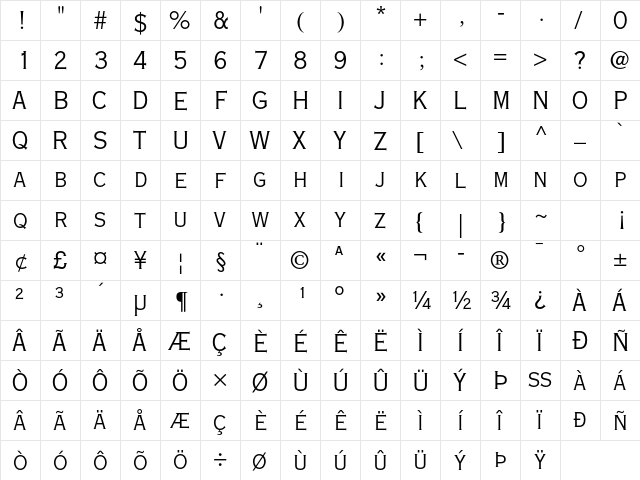
Copperplate Gothic Std 29 AB Font Preview
Copperplate Gothic Std 29 AB
Copperplate Gothic Std 29 AB Font Details
| Style | 29 AB |
| Designer | Frederic W. Goudy |
Design Context for Copperplate Gothic Std Typeface
Copperplate Gothic Std takes a clean, functional approach — its unadorned letterforms prioritise legibility and work reliably across screen and print environments.
Font Pairing: Works well alongside a characterful serif or display font that can carry the expressive load while Copperplate Gothic Std handles the functional copy.
Pro Tip: Pair Copperplate Gothic Std with a display or serif font for headlines — its neutral character makes it an excellent supporting player in complex typographic systems.